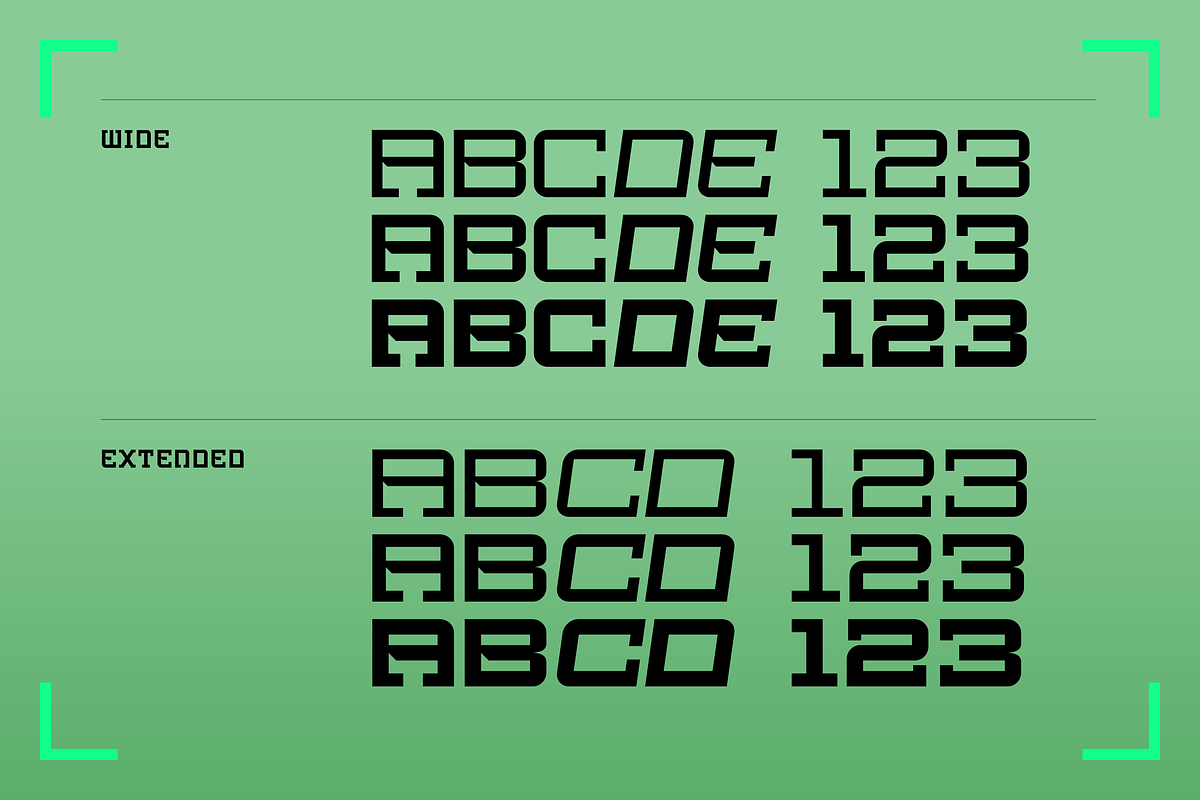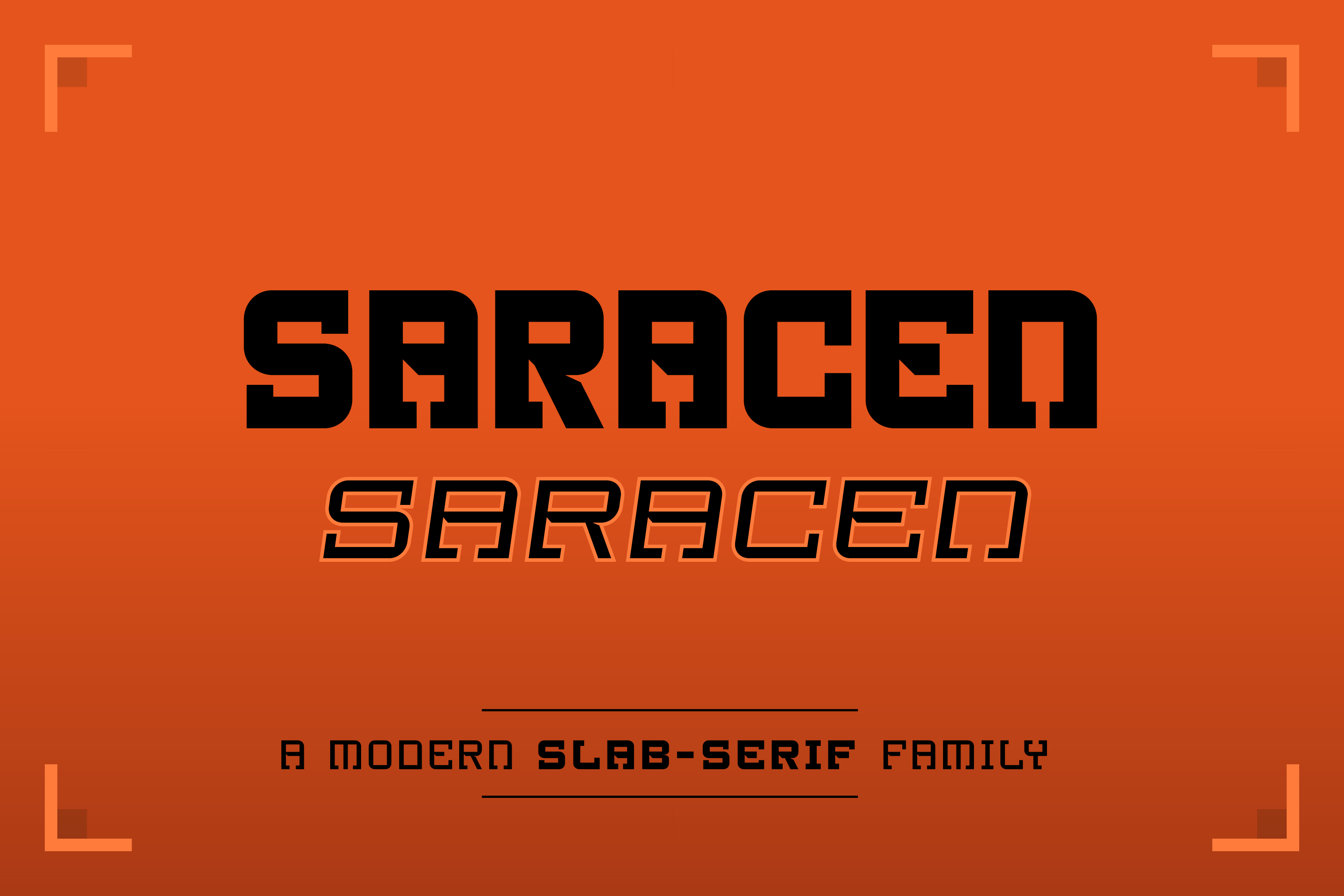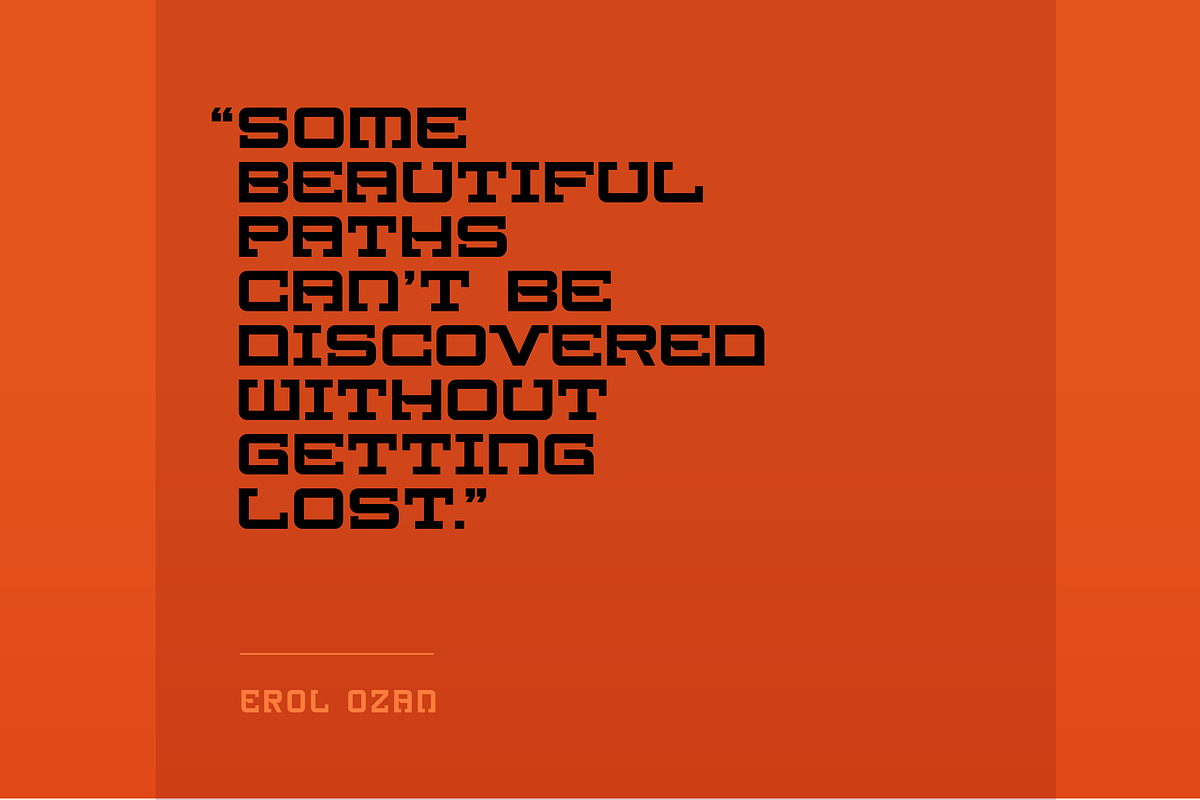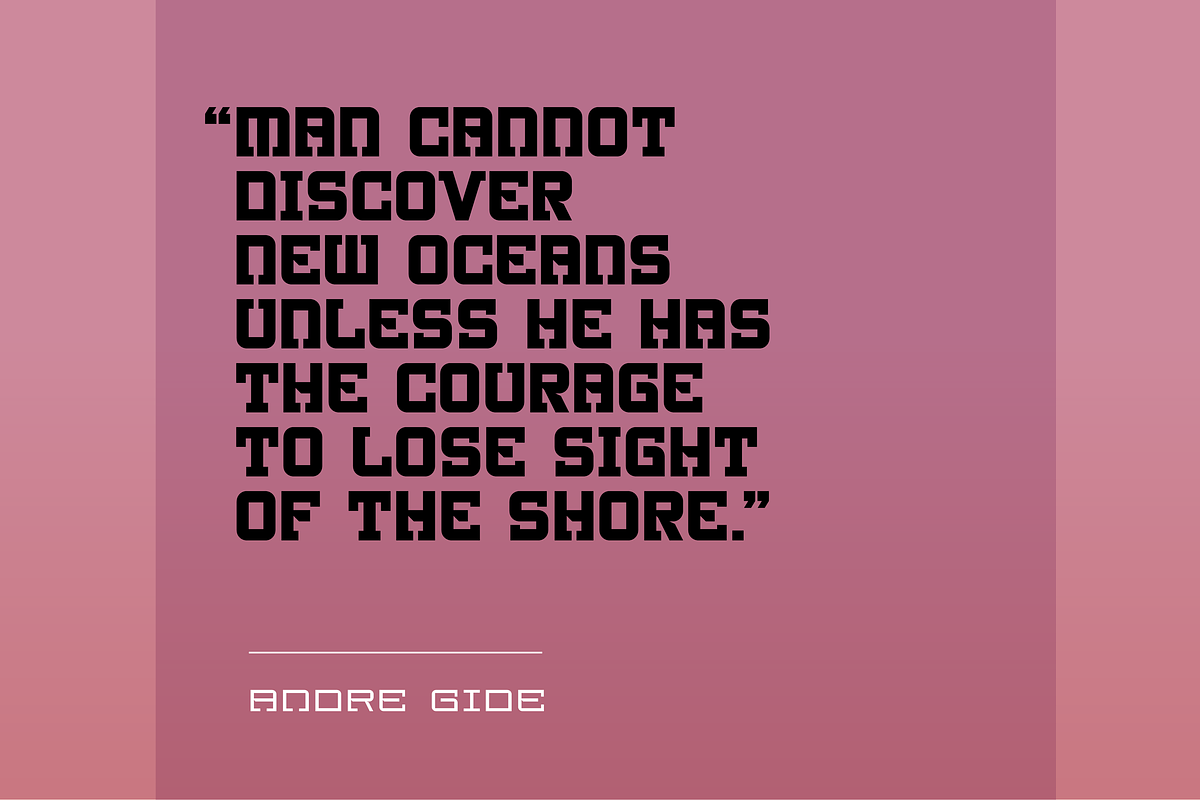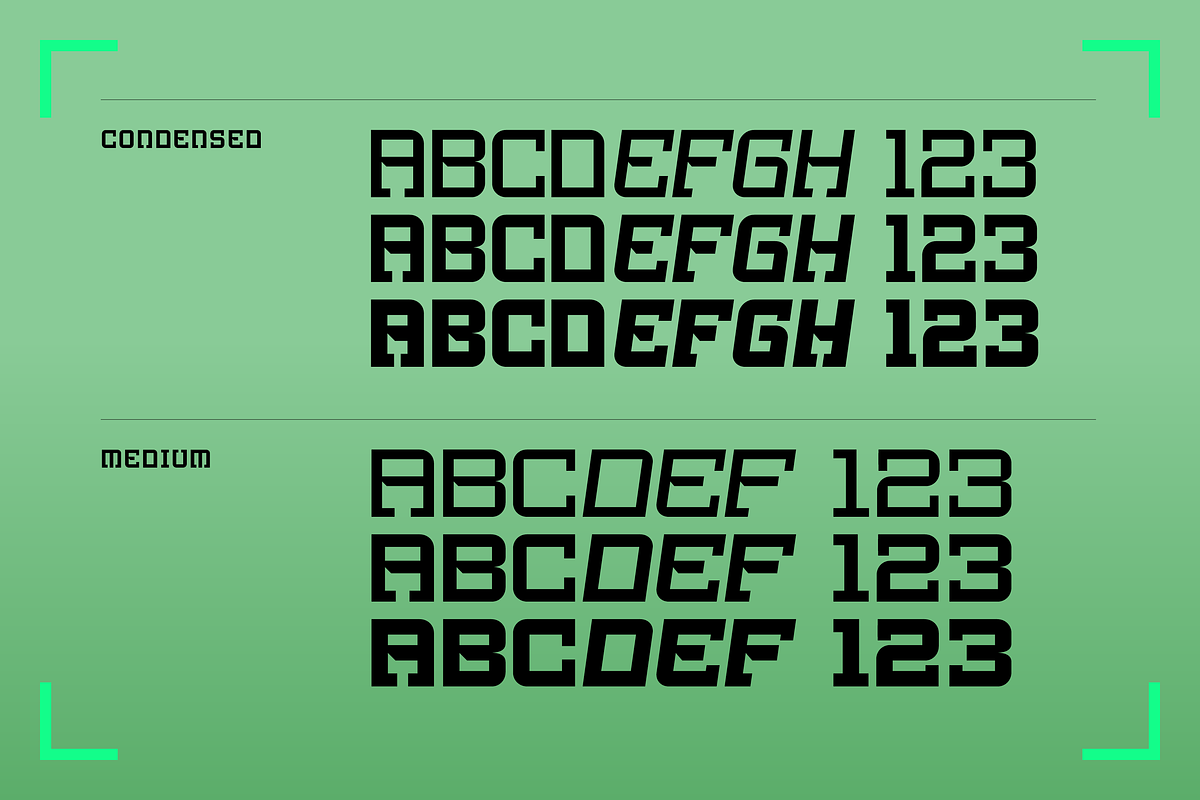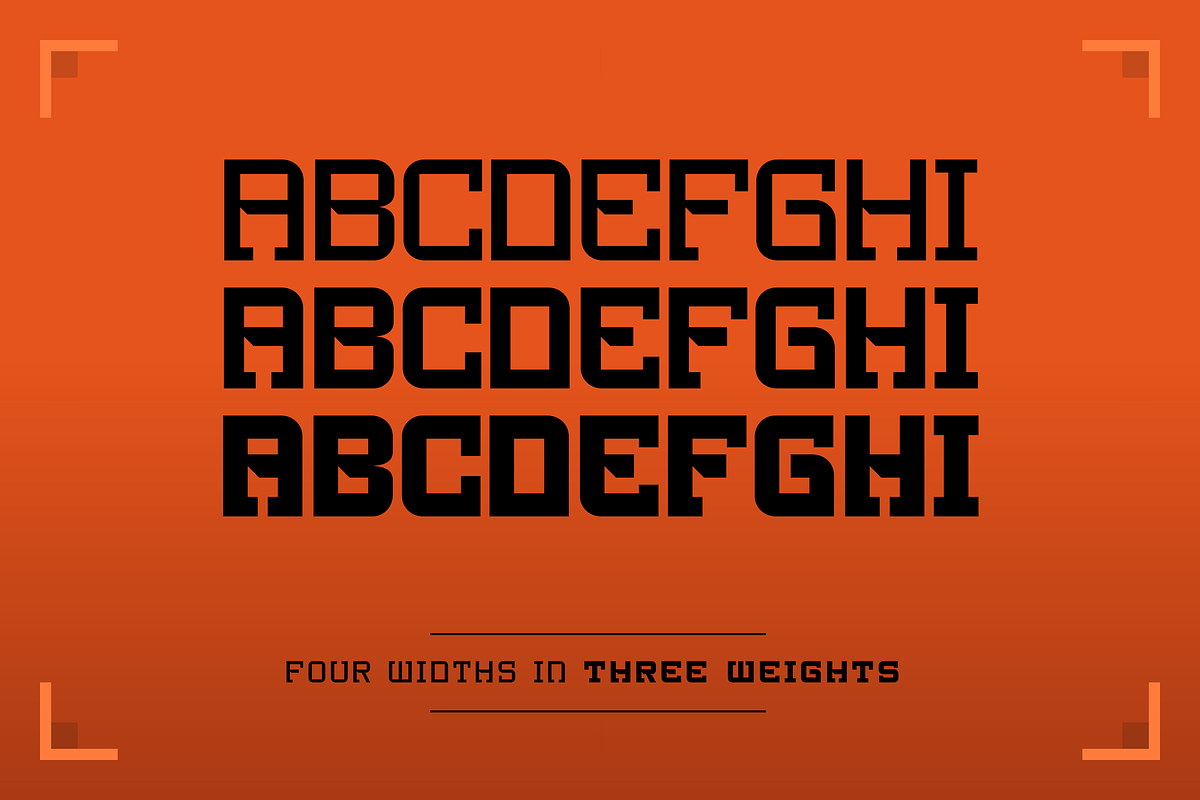
Saracen Slab Serif (24 fonts)
SB Saracen is a modern, capitals only, slab serif font in four widths and three weights. It includes a set of italic fonts.
- A total of 24 styles: Condensed, Medium, Wide and Extended in Light, Regular and Bold plus italics for all styles.
- Support for 89 languages.
- 247 glyphs.